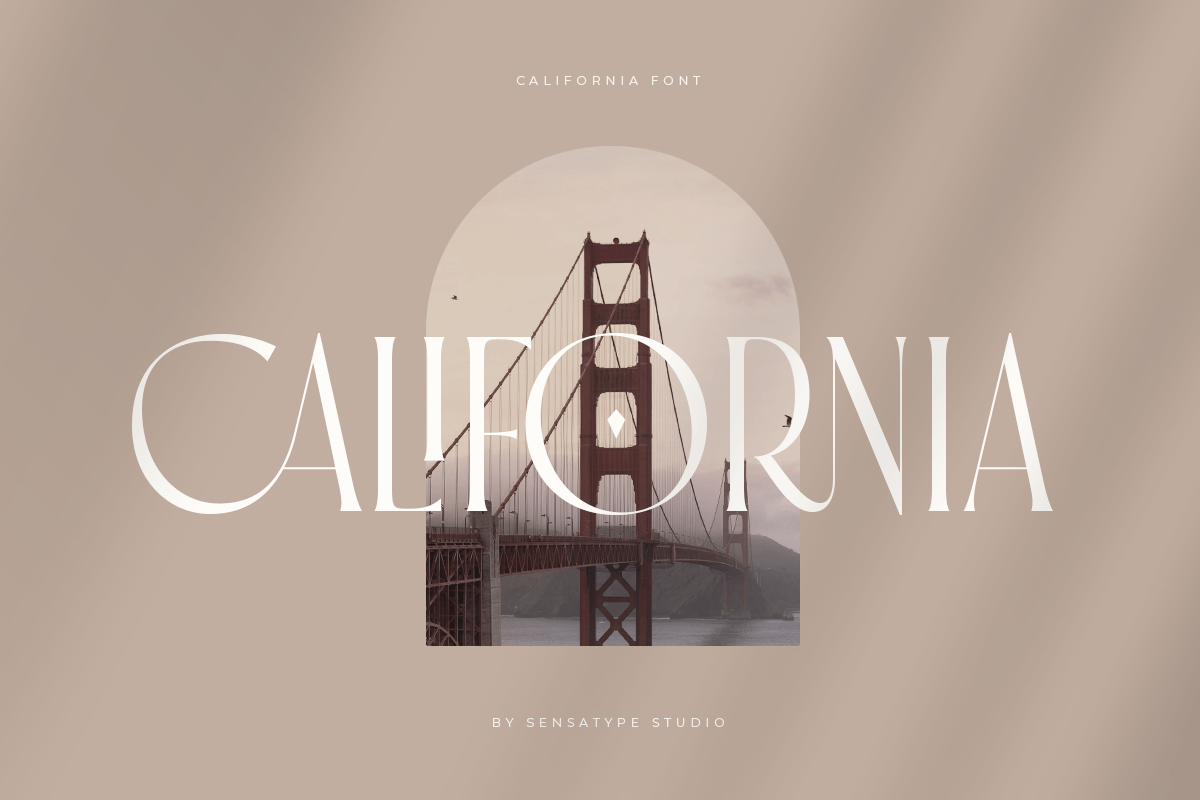
California
-Stylish Fashion FontCalifornia - Stylish Fashion Serif Font
California is a stylish fashion serif font designed for elegant branding and premium creative projects. Featuring refined serif details, vintage-inspired shapes, and unique letterforms, this typeface brings a sophisticated fashion aesthetic to modern designs.
Perfect for fashion branding, logo design, editorial layouts, luxury packaging, magazines, invitations, and creative identity projects. California combines classic serif structures with stylish details to create a timeless and fashionable visual appearance.
With unique ligature features and alternate characters, California allows designers to create distinctive typography combinations and memorable brand presentations.
- Ligature features
- Alternate characters